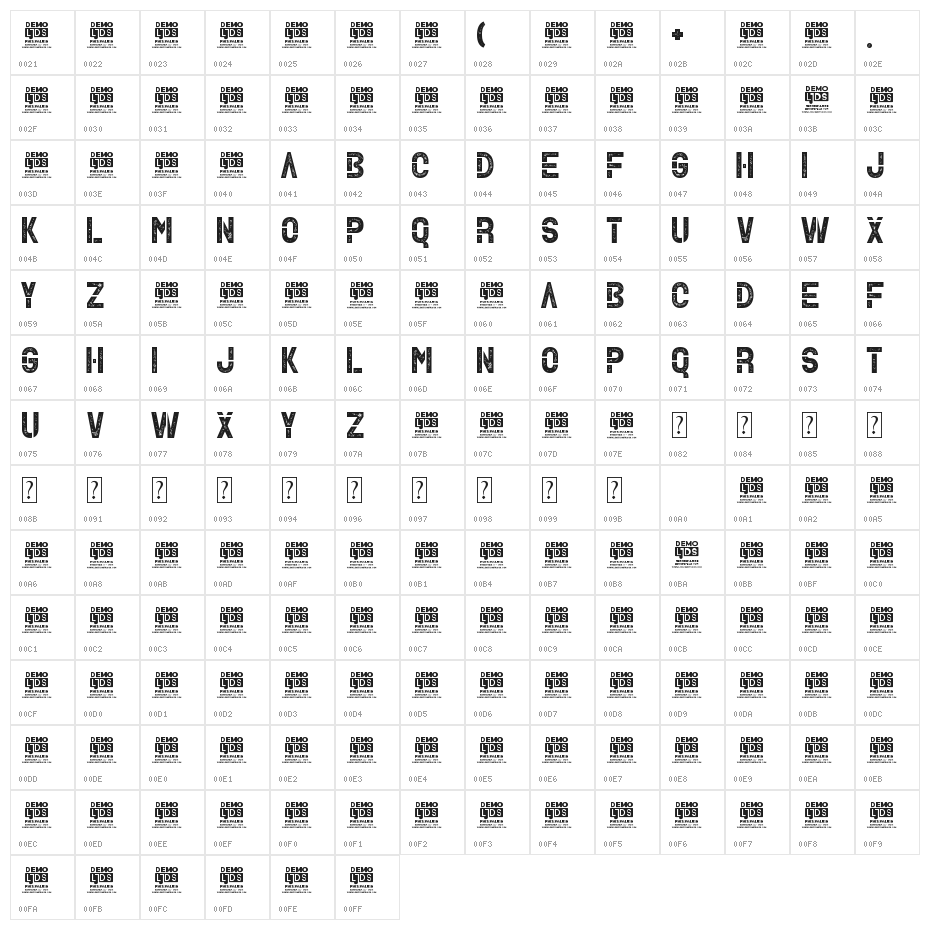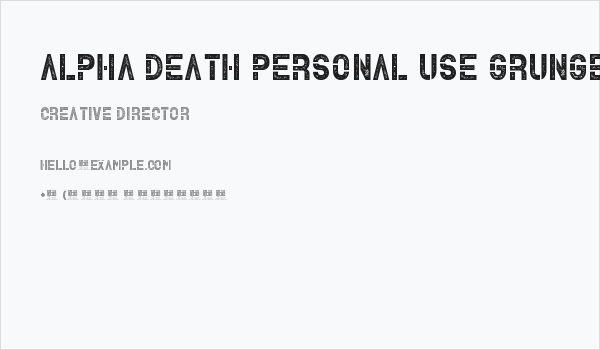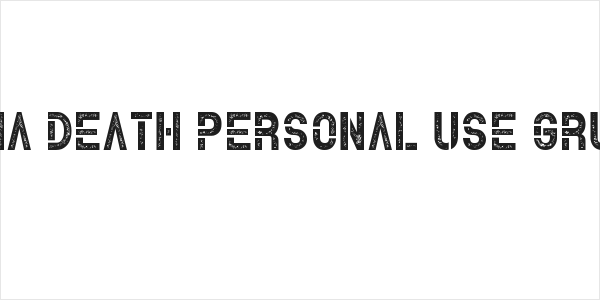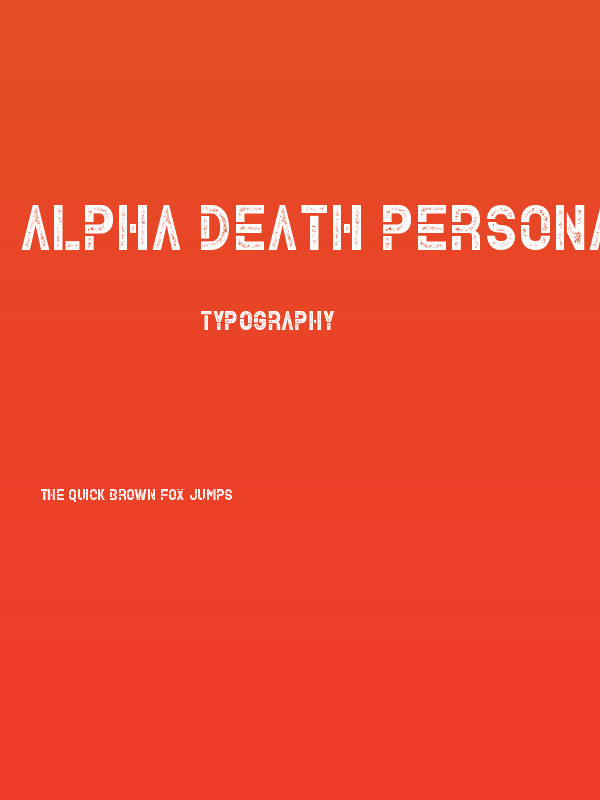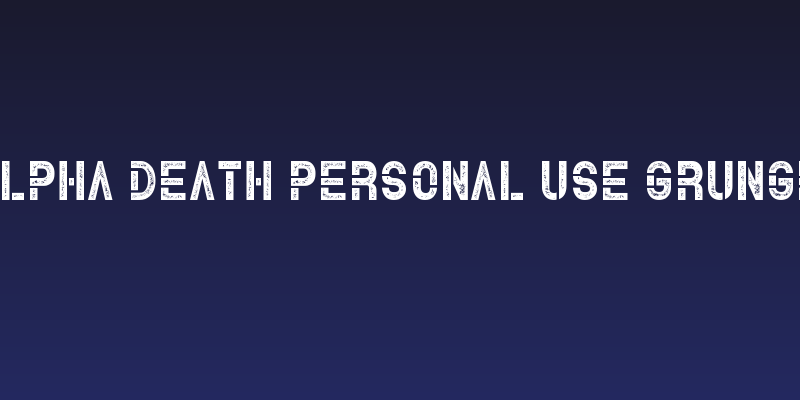
Alpha Death Personal Use Grunge Font
✎ Stencil
Alpha Death Personal Use Grunge Description
This font exhibits a bold, distressed style with a grunge aesthetic, characterized by rough, textured edges that give it a worn, vintage feel. The uppercase letters are robust and impactful, making a strong visual statement. The design incorporates a stencil-like appearance, with certain sections of the letters intentionally missing, enhancing its rugged and industrial look. This font is ideal for projects that aim to convey a sense of edginess or urban grit. The characters are evenly spaced, maintaining a consistent alignment across the board, which adds to its structured yet chaotic charm.
| Overall Style | Grunge, Vintage |
| Proposed Projects | Perfect for album covers, posters, streetwear branding, or any design needing a gritty, urban edge. |